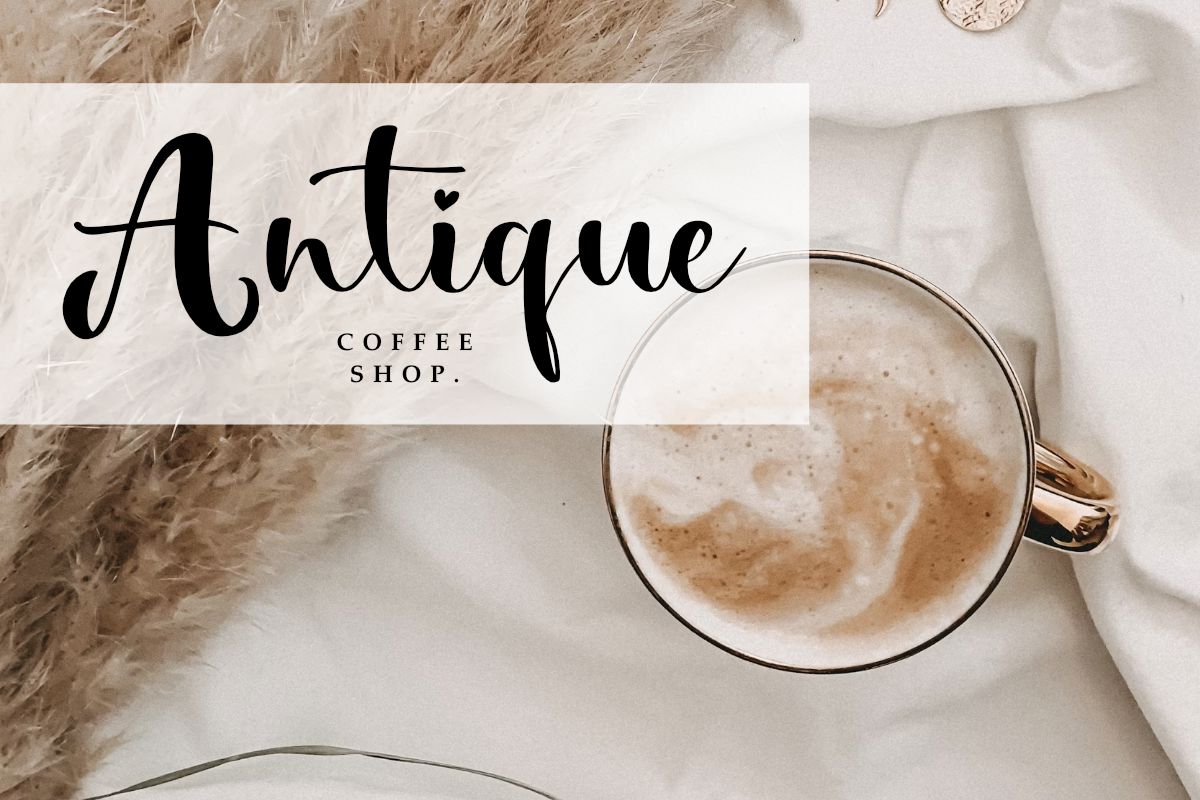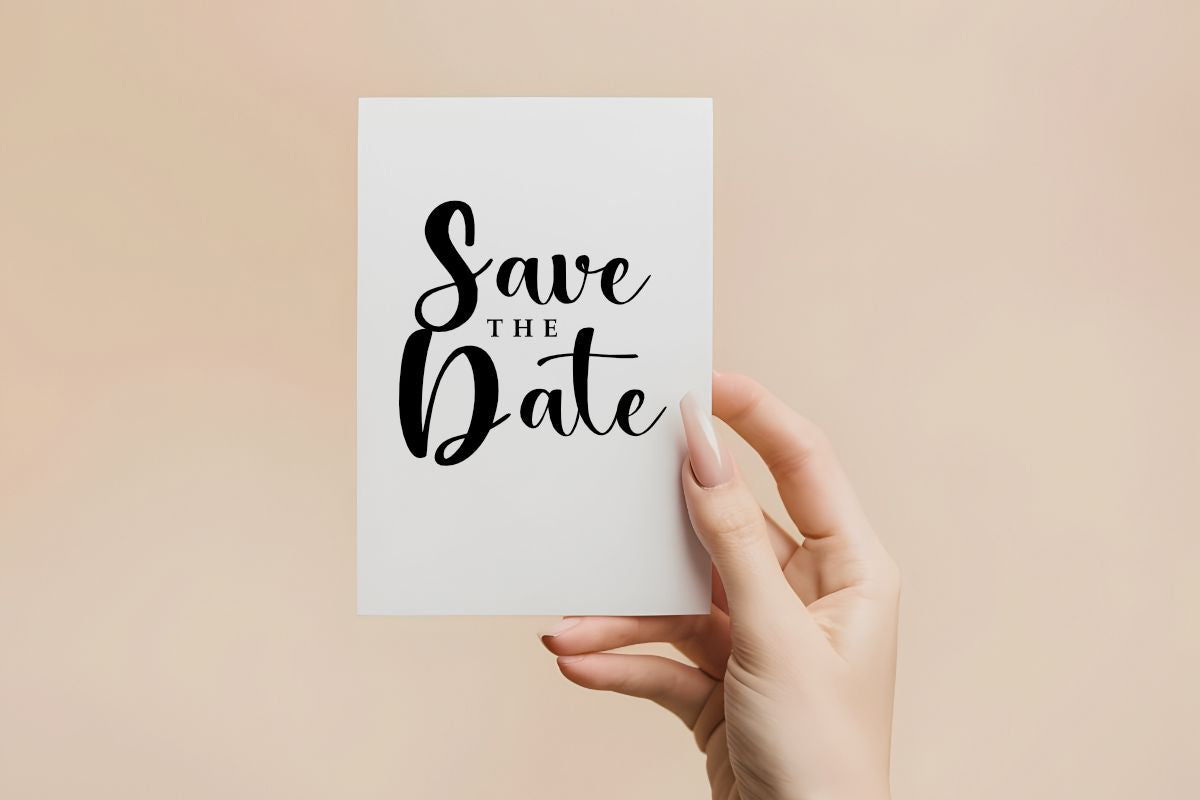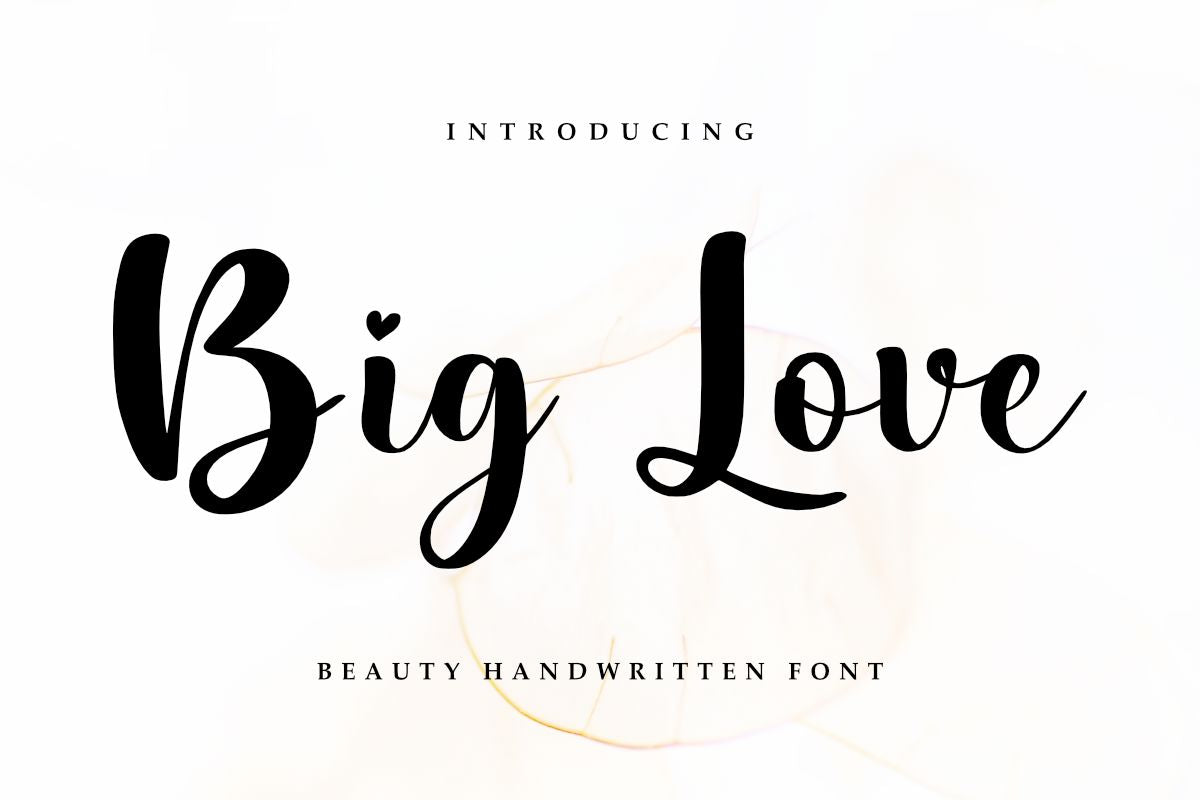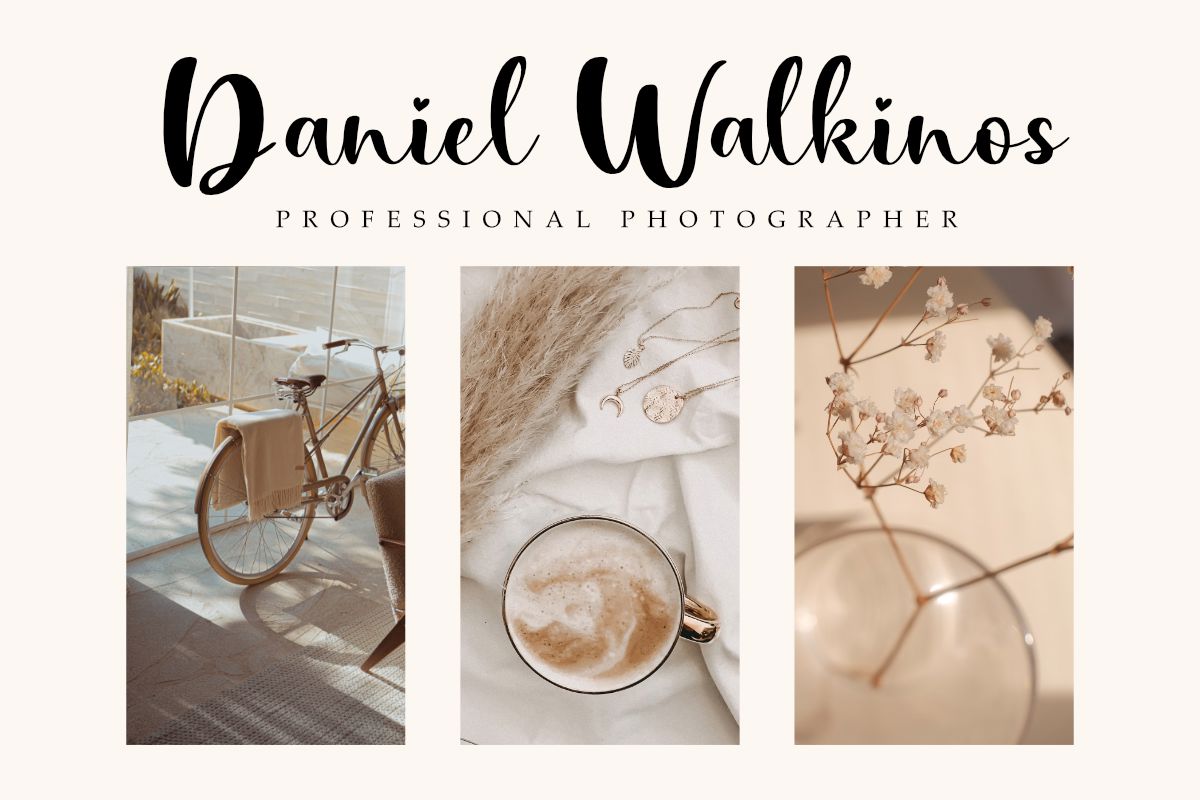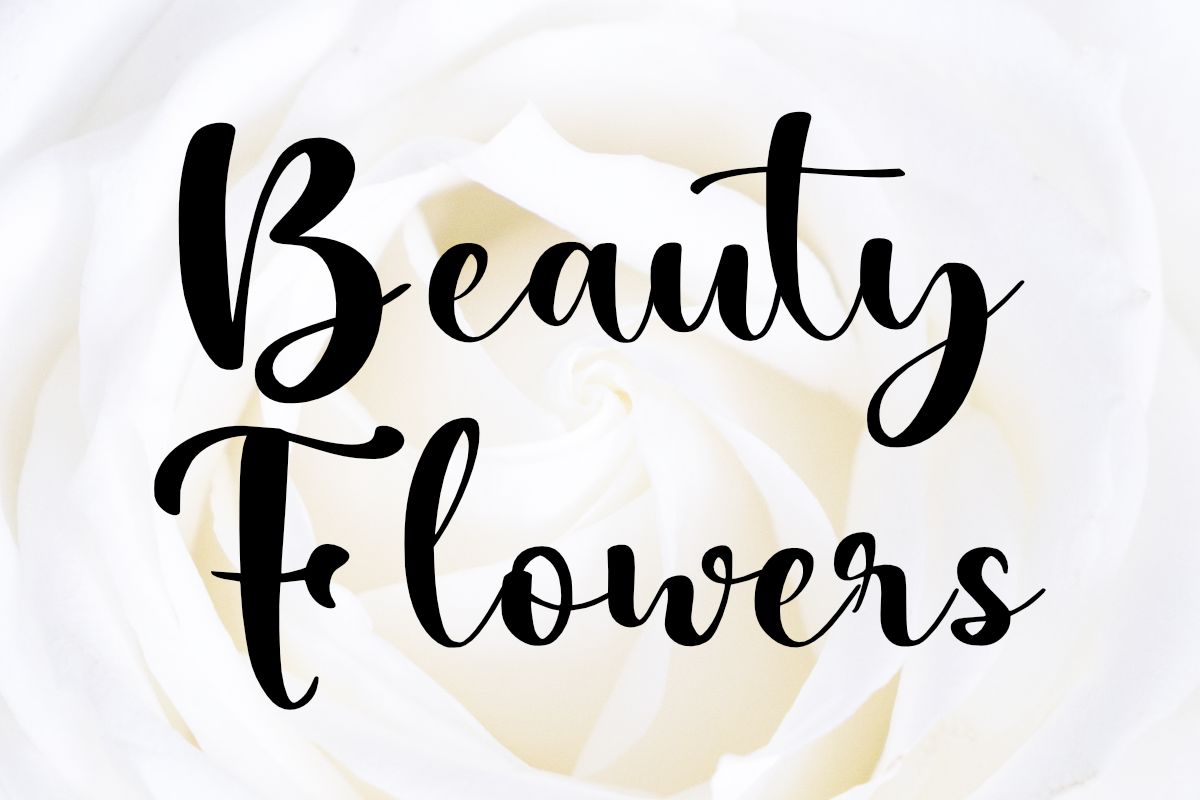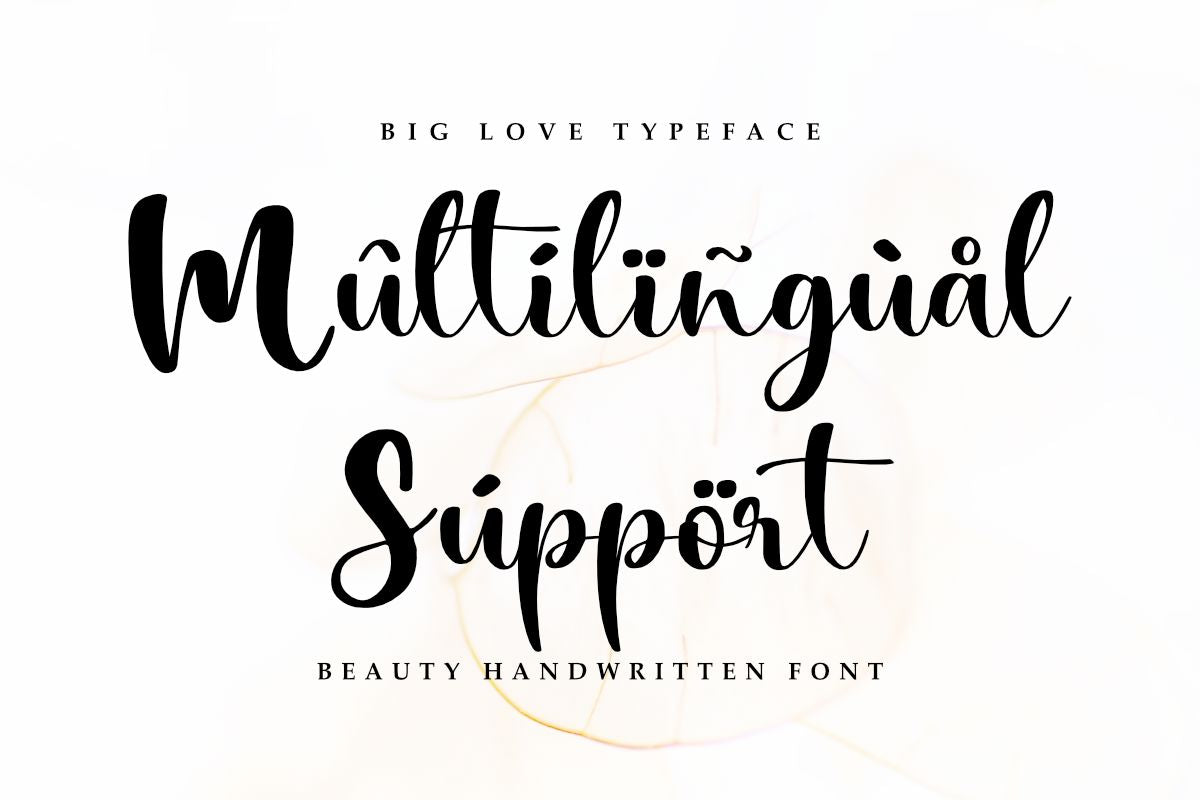
Big Love – Wedding Font
Big Love : Elegant Script for Beautiful Wedding Invitations
Introducing a Beautiful Handwritten Script
Big Love is a beautiful handwritten script font inspired by wedding invitation typography. This elegant typeface combines flowing curves with romantic character, perfect for adding sophistication to your most cherished celebrations.
Design Features and Specifications
Versatile Script for Special Occasions
• Elegant Design: Perfect balance between formal elegance and handwritten charm
• Complete Character Set: Includes uppercase, lowercase, numerals, and special characters
• Smooth Flowing Lines: Creates a natural, authentic handwritten appearance
Design Advantages
• Romantic Aesthetics: Captures the essence of love and celebration
• Professional Quality: Meticulously crafted letterforms ensure beautiful results
• Excellent Legibility: Despite its decorative nature, maintains perfect readability
Perfect Applications
This versatile script excels in numerous creative applications:
• Invitations: Create stunning save-the-dates, invitations, and RSVP cards
• Branding & Logos: Develop elegant brand identities for celebration-related businesses
• Custom Crafts: Perfect for embroidery, laser cutting, and Cricut projects
• Gift Items: Design beautiful stickers, t-shirts, tumbler mugs, and personalized gifts
• Home Décor: Craft elegant wall art and quotes with this beautiful typeface
• Digital Design: Create sophisticated social media graphics and digital stationery
Elevate Your Special Day Designs
Add a touch of romance and elegance to your celebrations with Big Love. Its beautiful handwritten style perfectly captures emotion and significance. Whether designing invitations, creating keepsakes, or crafting unique décor, this font delivers the perfect balance of elegance and authenticity.